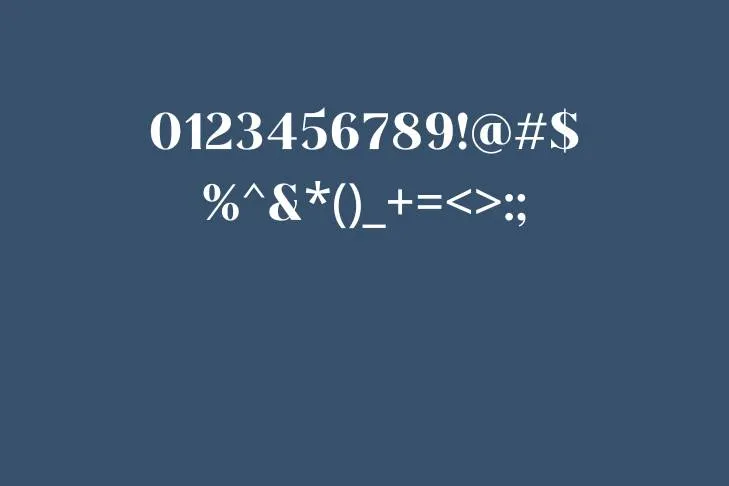
I’d like to introduce you to a modern typeface named Elody font. You will learn about the expressive characteristics of this typeface in this post, along with suggestions for using it and a list of similar typefaces you may use to give your projects a cohesive appearance.
It is a contemporary serif typeface with calligraphic strokes and beautiful, and distinctive character shapes. The typeface features geometric elements, different weights, and contrast to make the text simple to read and aesthetically pleasing. Spanish designer and letterer Joluvian is the creator of this magnificent typeface.
Elody is a multifunctional font with a polished and graceful appearance that may lend a touch of uniqueness and delicacy to any design. It is available in three different styles: regular, bold, and italic. The font family supports more than 20 different languages, making it bilingual and suitable for usage in a variety of creative projects around the world. To enhance the appeal of your design project, consider combining this font with another distinctive typeface like the droidiga font.
Creative Ways to Use Elody Font
This amazing typeface has the special ability to be flowing and charming, which makes it perfect for initiatives that demand graphics with a sense of sophistication. The font design has a distinctive contrast and stroke movement that makes it beautiful and eye-catching. The font’s style makes it easy to read even at small sizes, making it perfect for both print and digital media.
This magnificent typeface is adaptable and can be used for a variety of creative tasks, including branding, packaging, editorial, printing, and digital media. It is the perfect typeface for invitations, posters, quotes, and book covers because of the font’s distinctive shapes and graceful strokes. It is also great for creating logos because it offers distinctive and professional typography for projects involving branding.
Because of its stunning and striking appearance, most fashion designers and trendsetters choose to etch letters on various types of clothing, such as t-shirts, trousers, shirts, tracksuits, etc., using this excellent typeface. This typeface is used by graphic designers and programmers because of its elegant, refined, and delicate aesthetics.
Elody Font Pairing
Several fonts are paired with this exquisite typeface and can be employed to give a similar appearance to your projects. Some of the alternatives are mentioned below:
- Athene Font
- Classic Font
- Bodoni Font
- Didot Font
The Classic typeface was created for use in book typesetting, whereas the Athene font is a traditional and graceful serif-type font with excellent contrast. The Elody font is known for its high-contrast strokes, as are the Bodoni and Didot fonts. Didot is one of the most attractive typefaces for editorial design, while Bodoni is a popular typeface.
How old is Elody Font?
It is a new modern texture style. This font style is very flexible, which means that you can utilize it in many different ways. It works well for both invitation cards and Christmas cards.
What font is Elody Font?
It is a contemporary serif typeface with calligraphic strokes and beautiful, and distinctive character shapes. The typeface features geometric elements, different weights, and contrast to make the text simple to read.